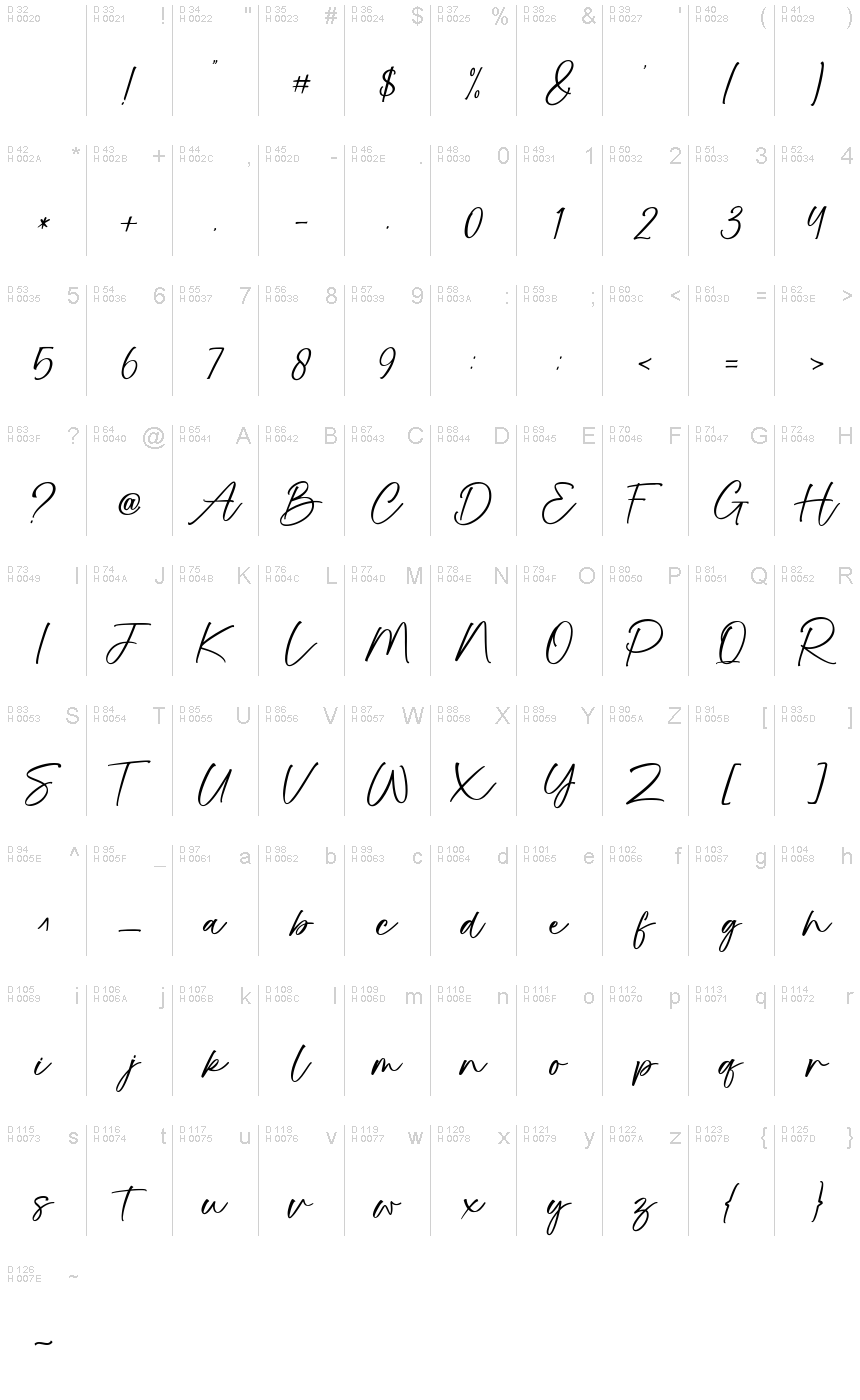
Super Girl
Super Girl by Ramli Setiadi captivates with its elegant handwritten style. Its fluid and graceful strokes evoke a sense of personal touch and sophistication, making it ideal for projects that require a hint of personalization and charm.
The font’s distinctively playful yet refined appearance makes it perfect for invitations, greeting cards, logos, and social media graphics. Its handwritten allure ensures that each word seems to flow naturally across the page, providing a sense of warmth and authenticity.
Whether adorning a wedding invitation or forming the centerpiece of a chic branding project, Super Girl's artistic expression makes it an invaluable asset in any designer's toolkit.